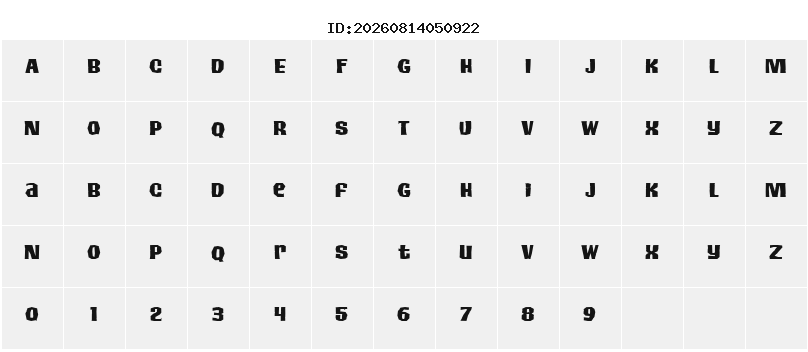
Survivor Font Preview
• Font Name: Survivor Font
• Full Font Name: Survivor Font
• Description: outwit outplay outlast
About Survivor Font.ttf
Survivor Font.ttf is a modern, elegant sans-serif font designed for ultimate readability and visual harmony. Perfect for branding, headlines, web design, and print materials.